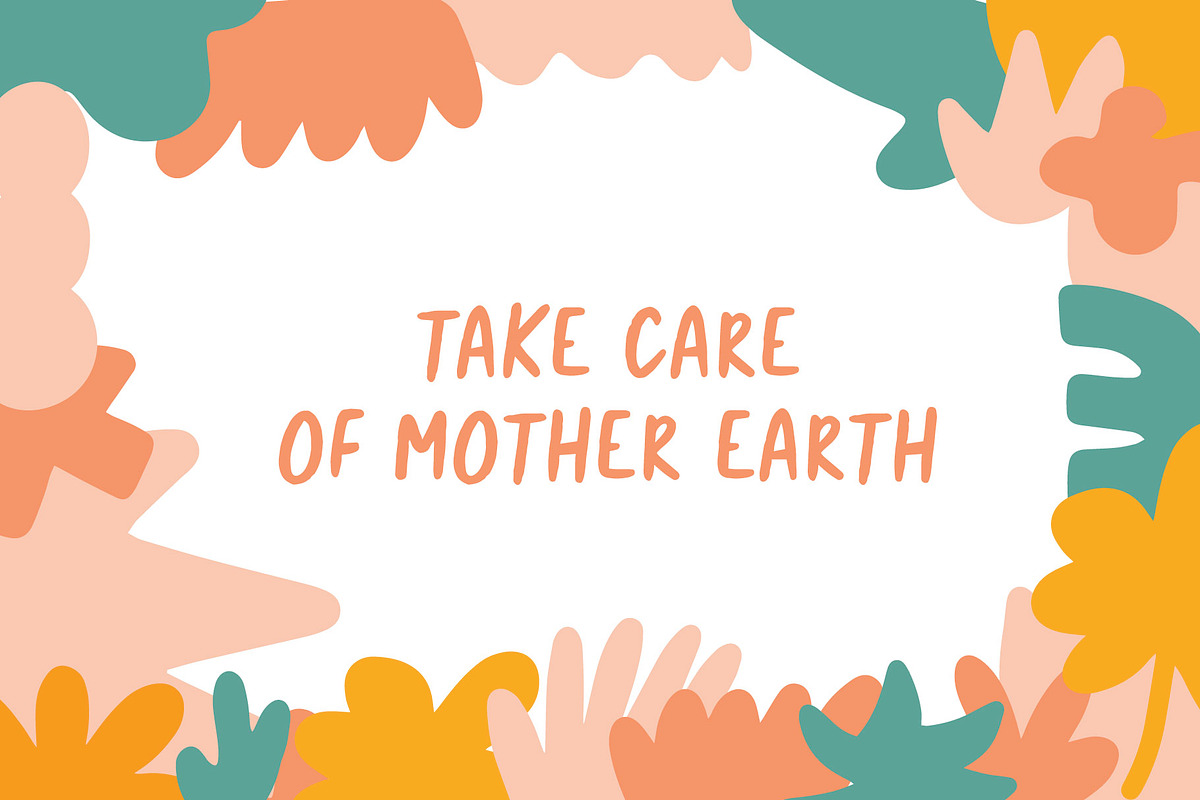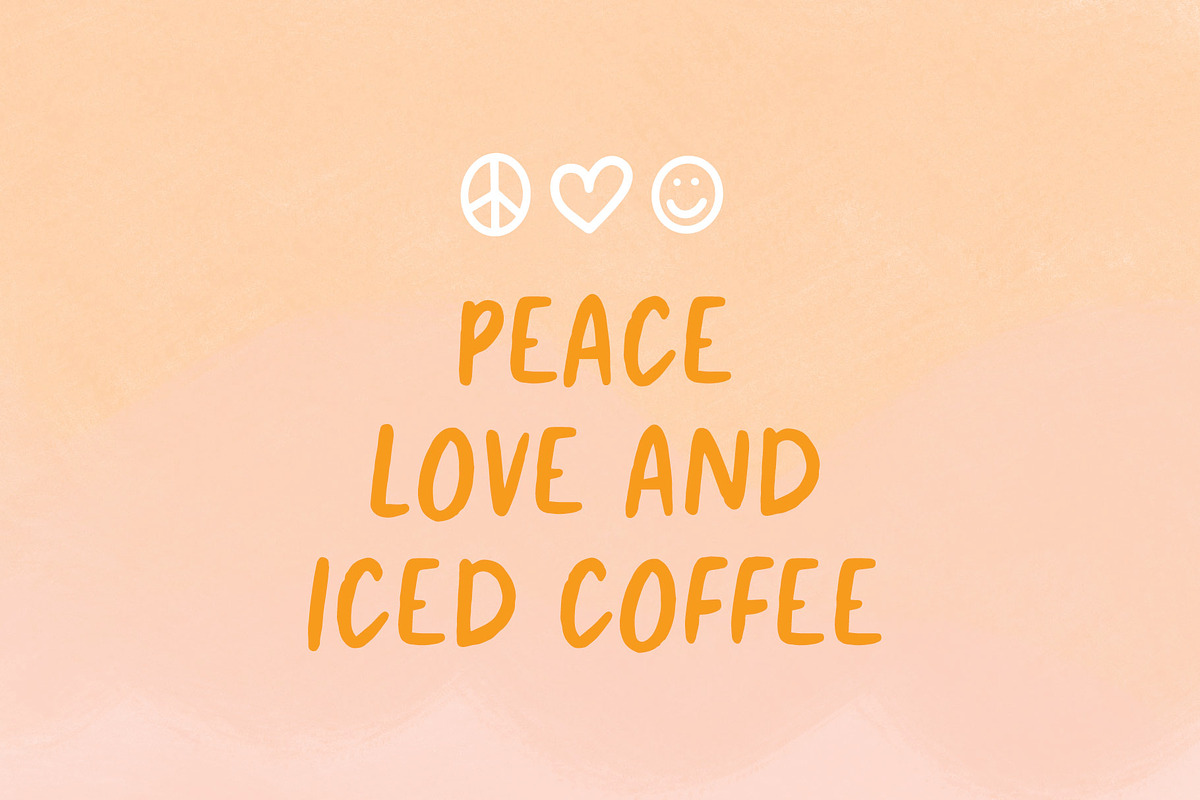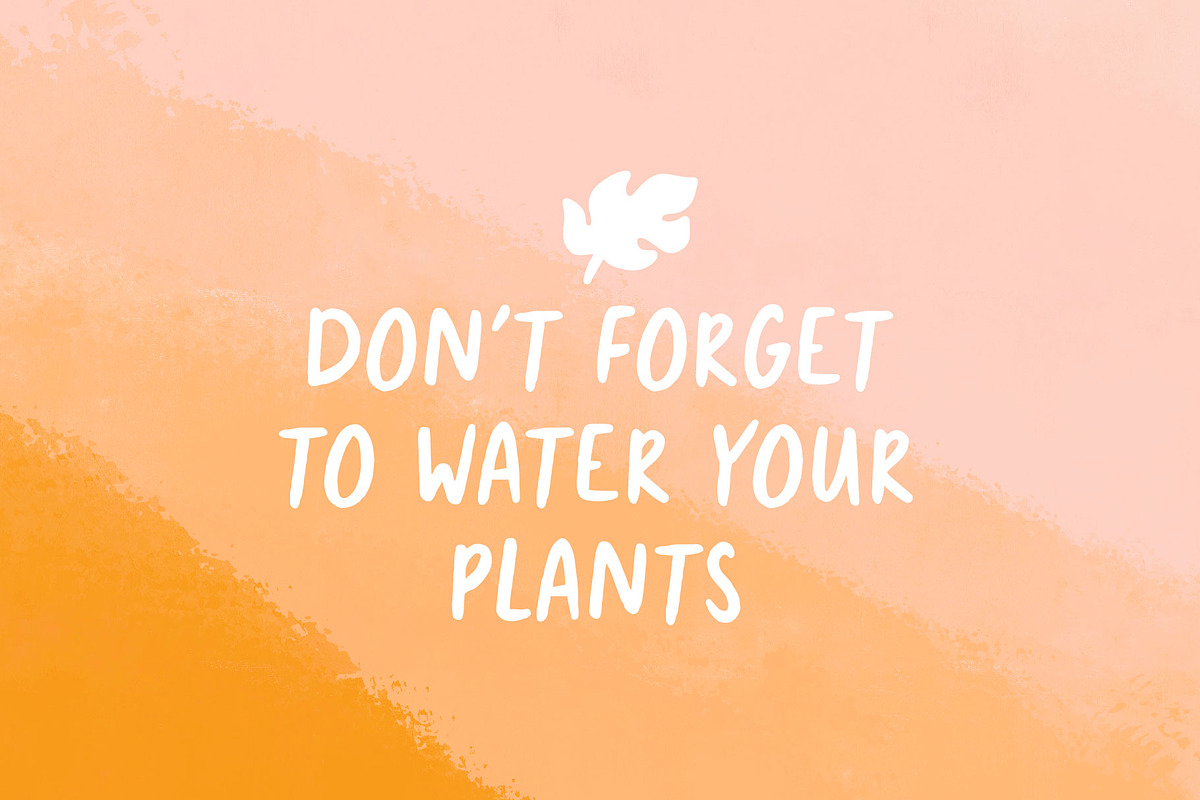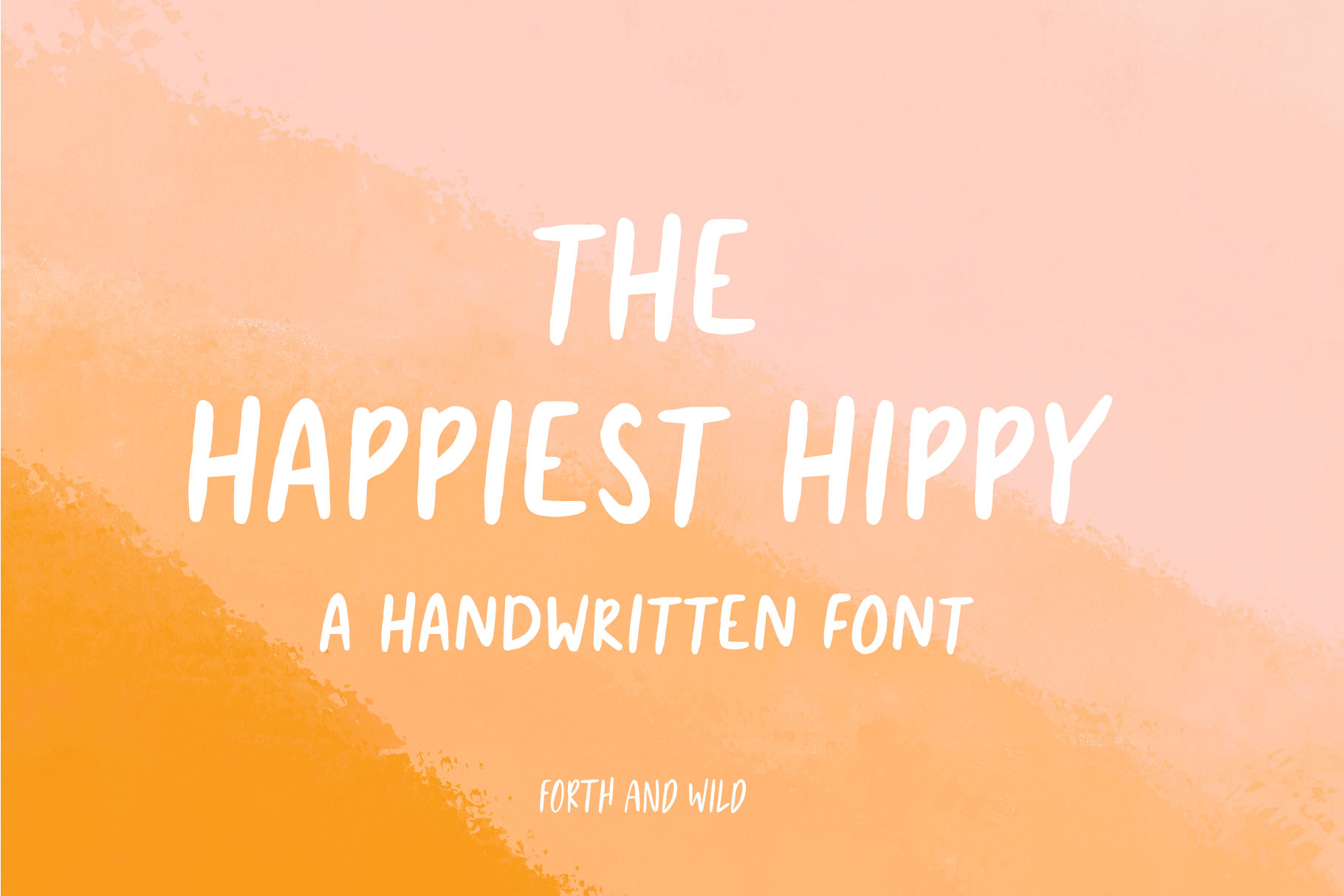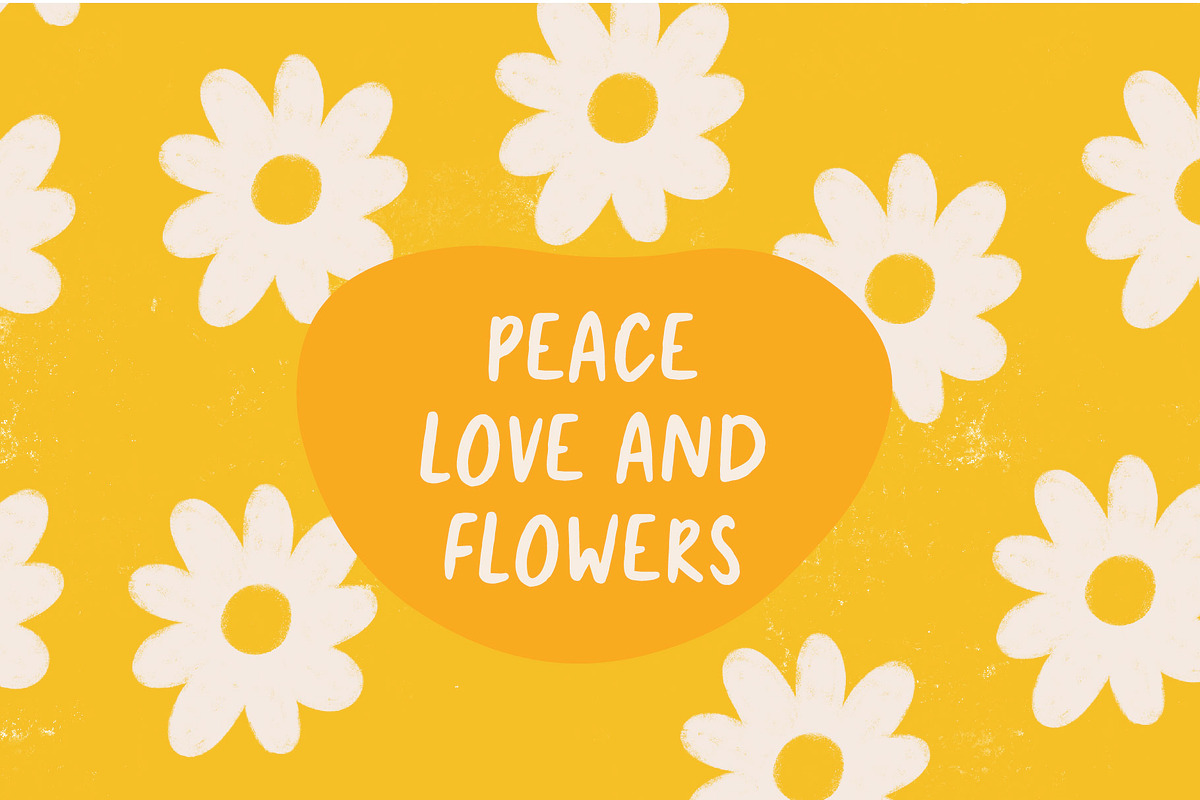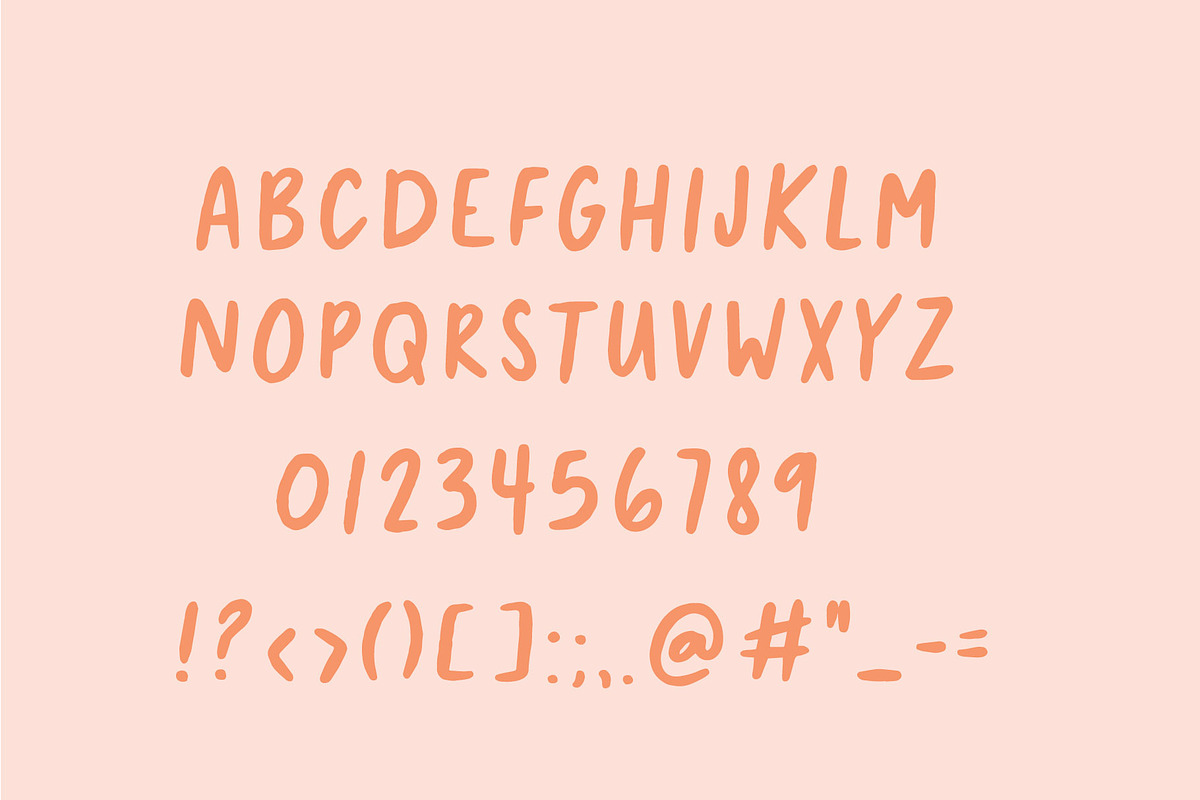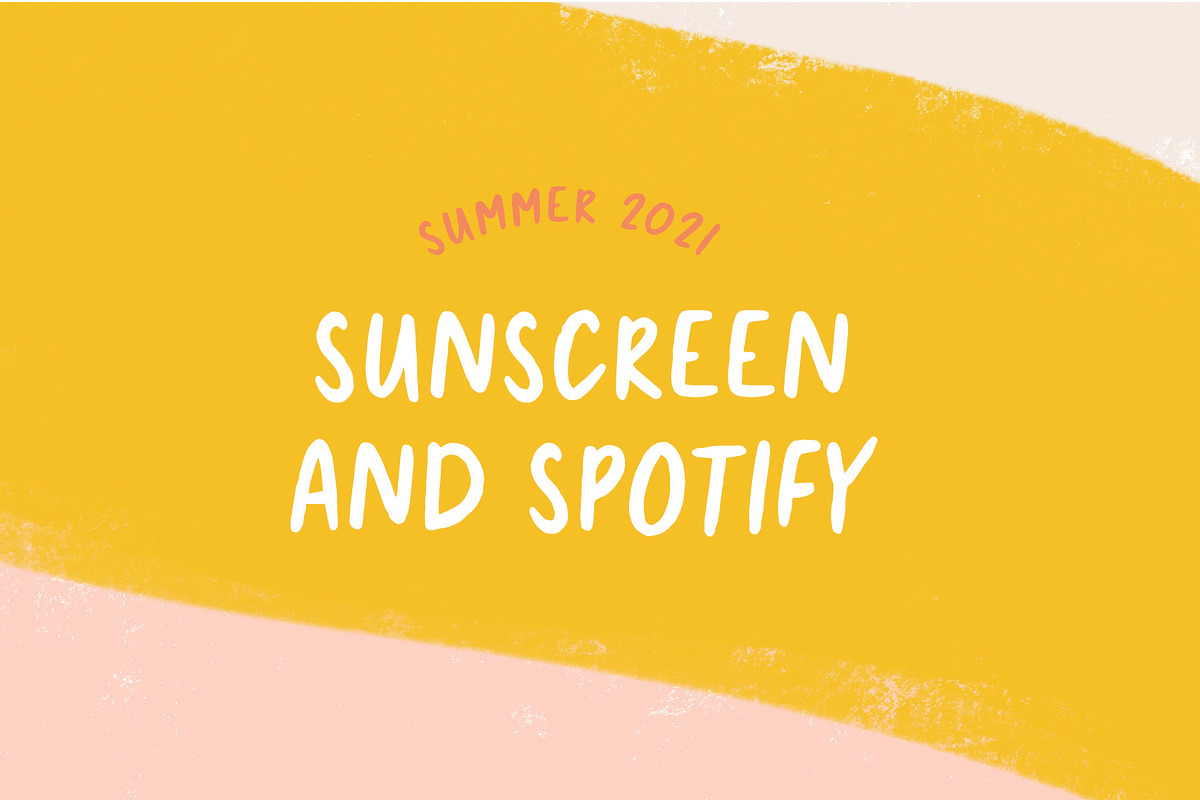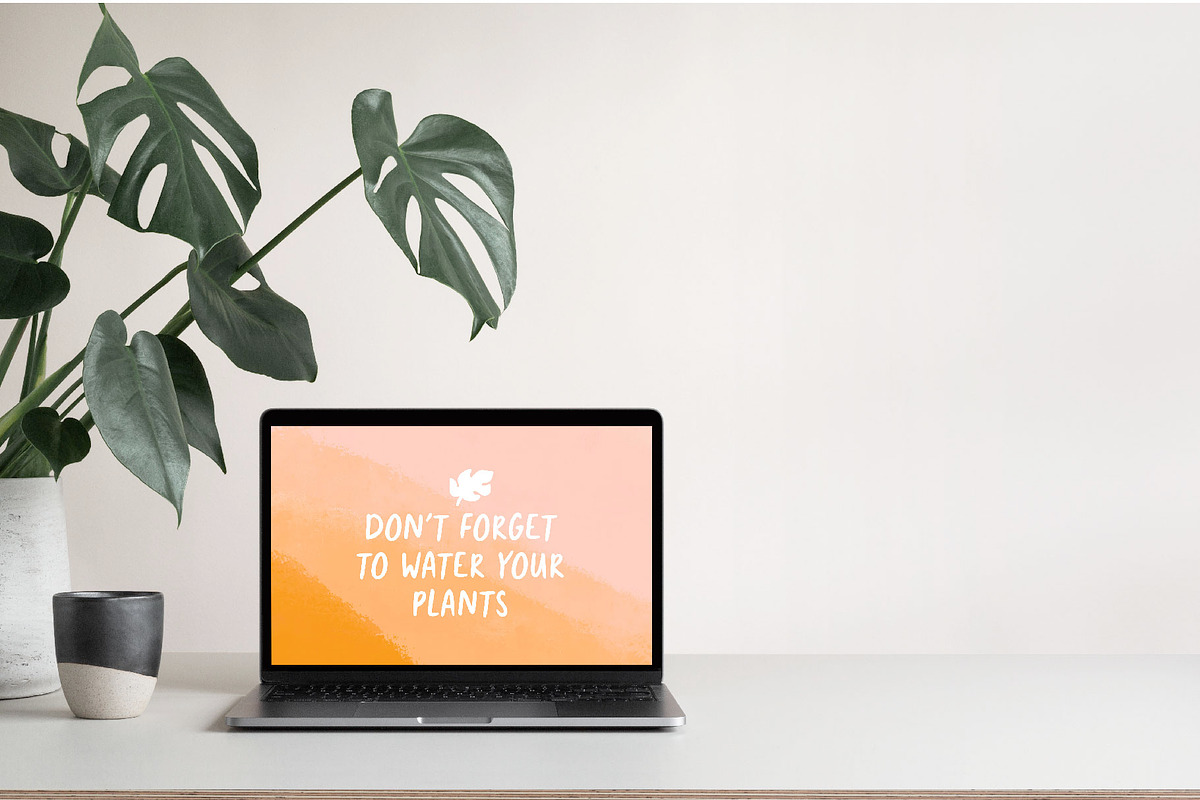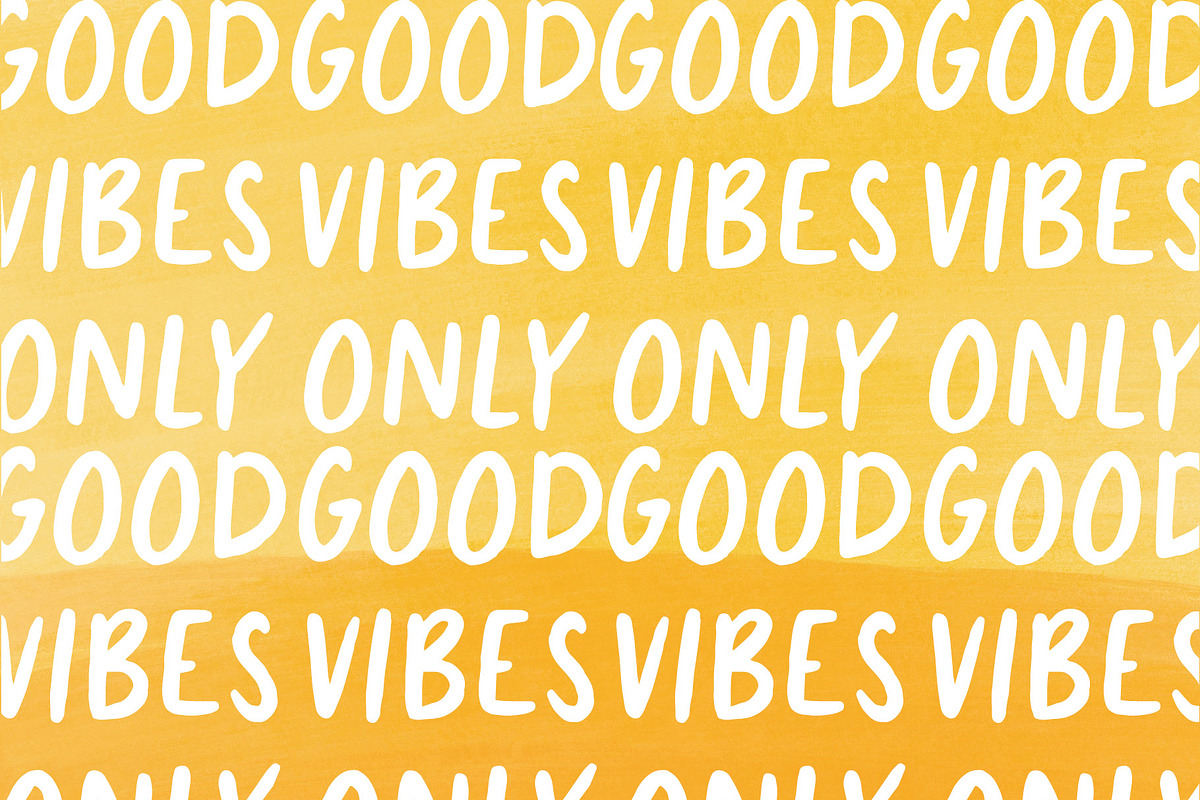
Handwritten Playful Font
The Happiest Hippy font is a playful handwritten font that is perfect for adding a personal touch to your next project.
The Happiest Hippy is a handwritten UPPERCASE simple and bold display font. Happiest Hippy display font works great for creating logos, quotes to share on Instagram, social media, and more!
Please note Happiest Hippy only comes with what you see on the second image. Punctuation and symbols are limited.